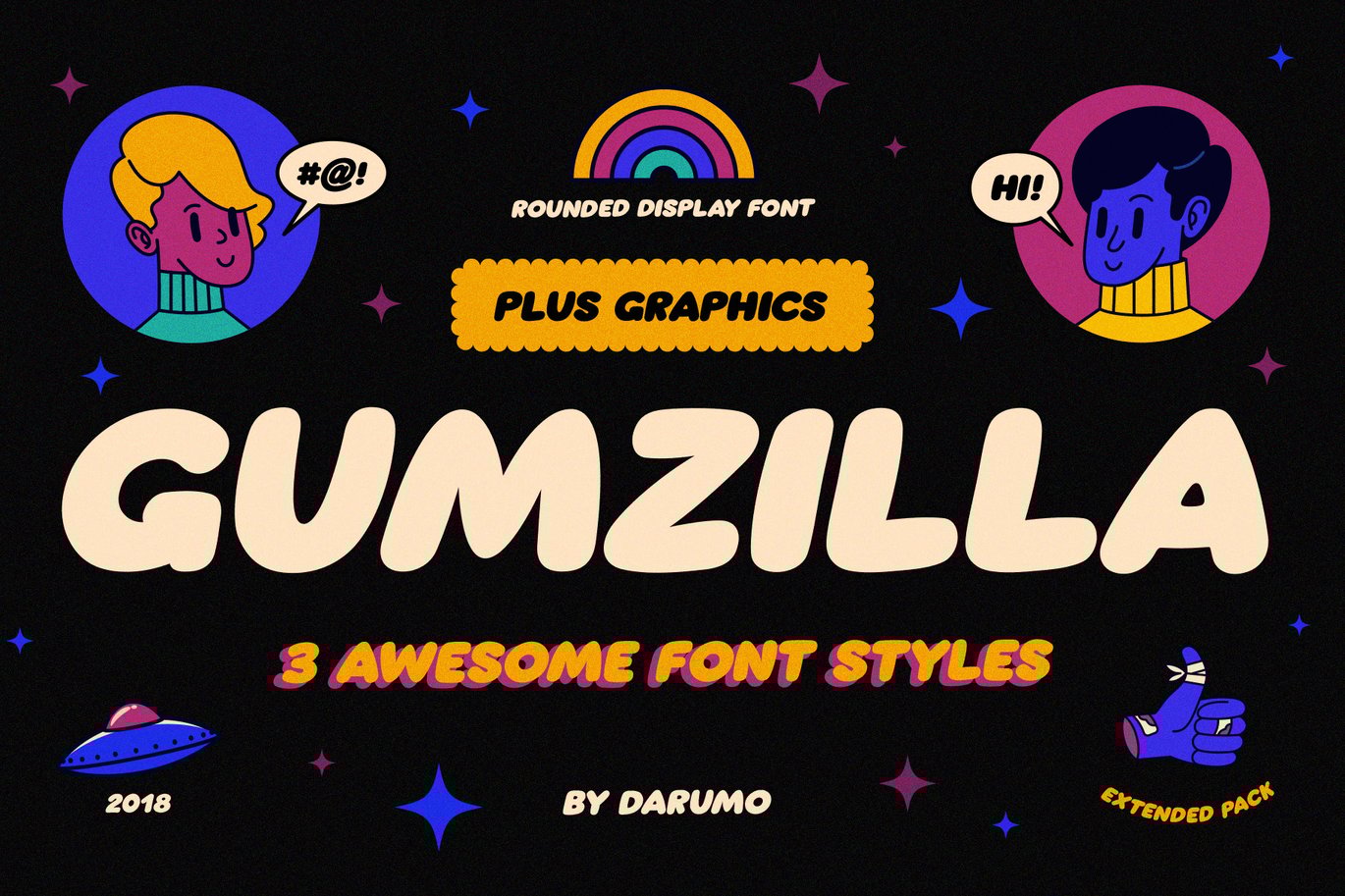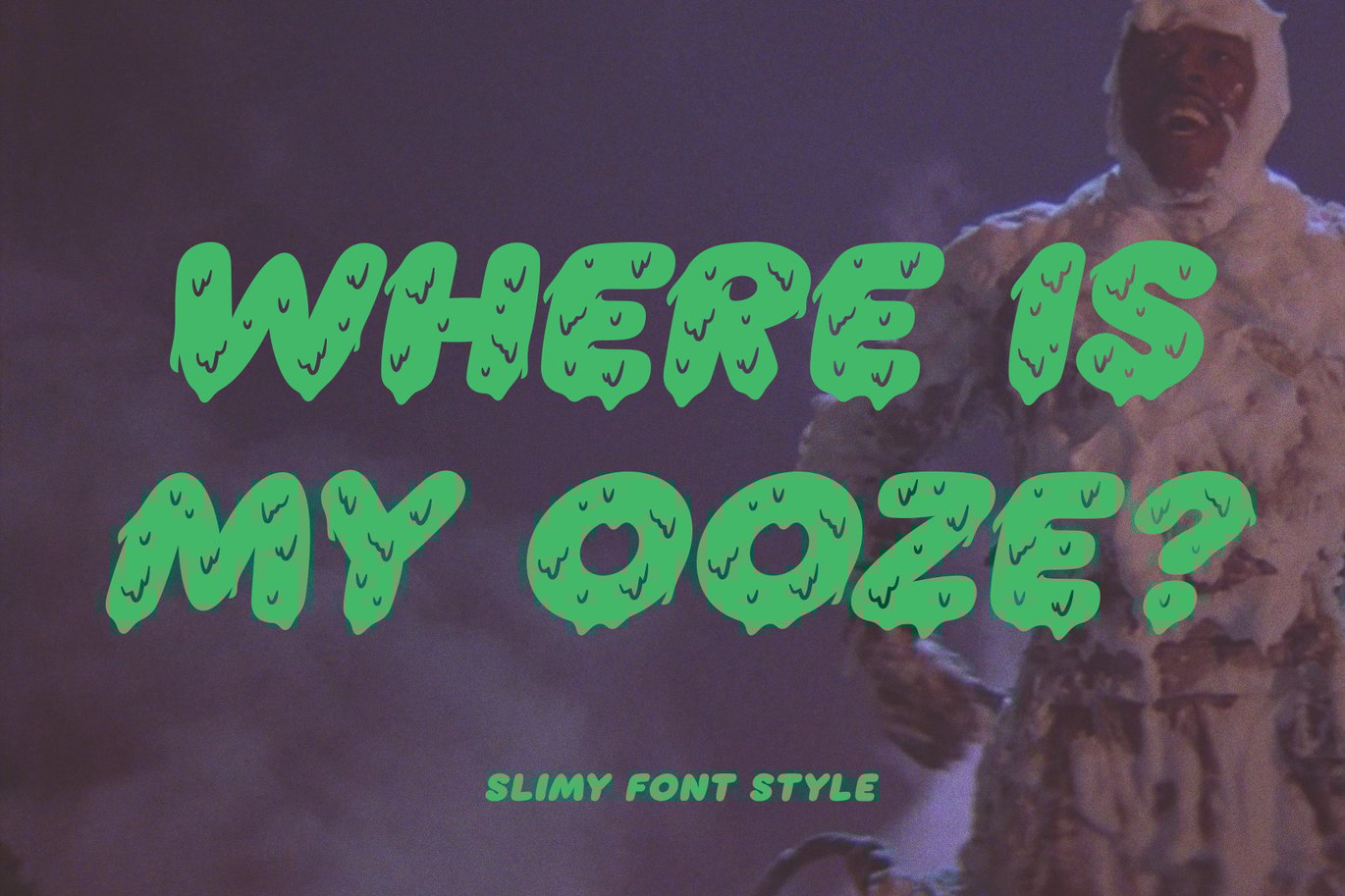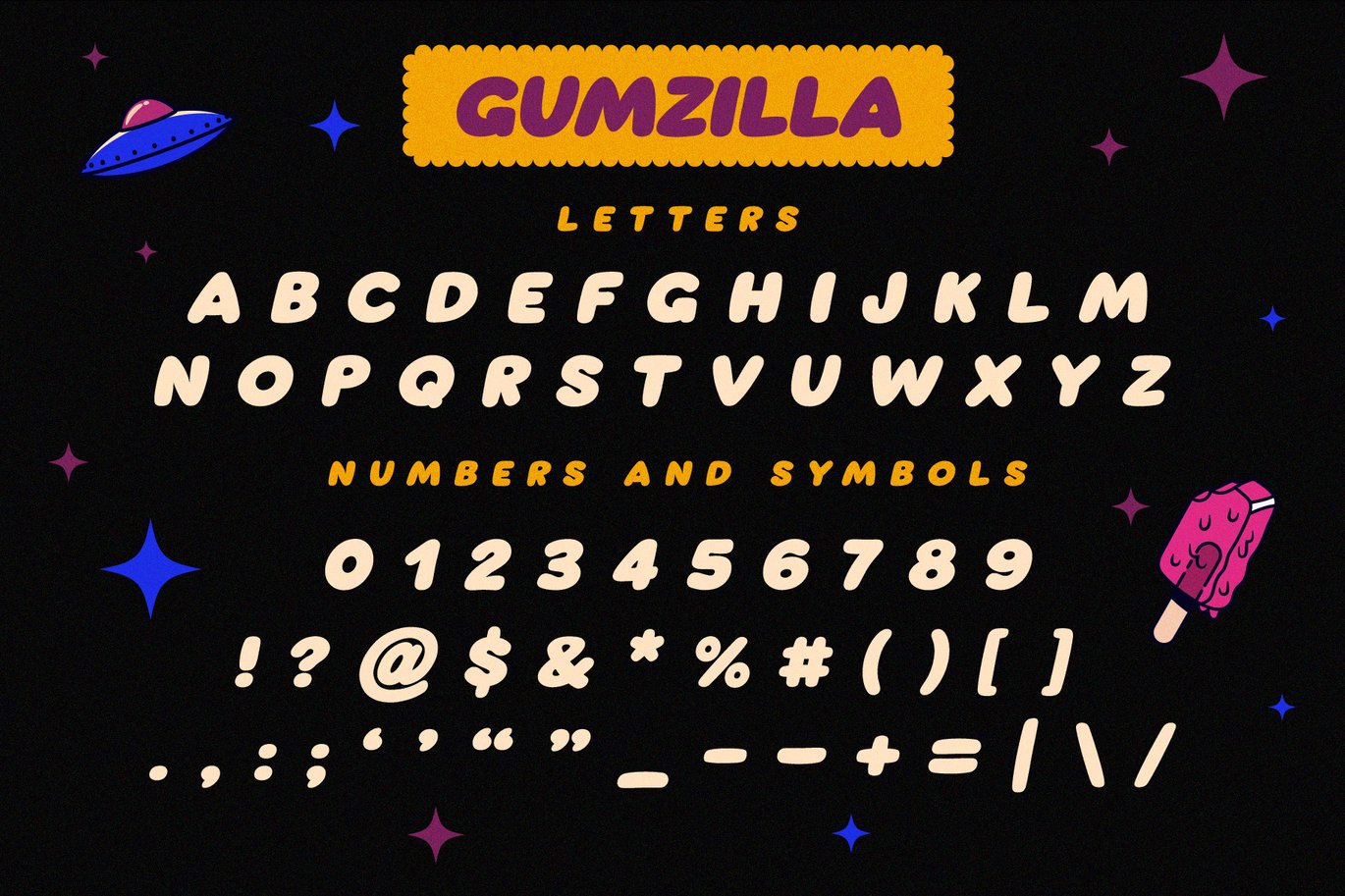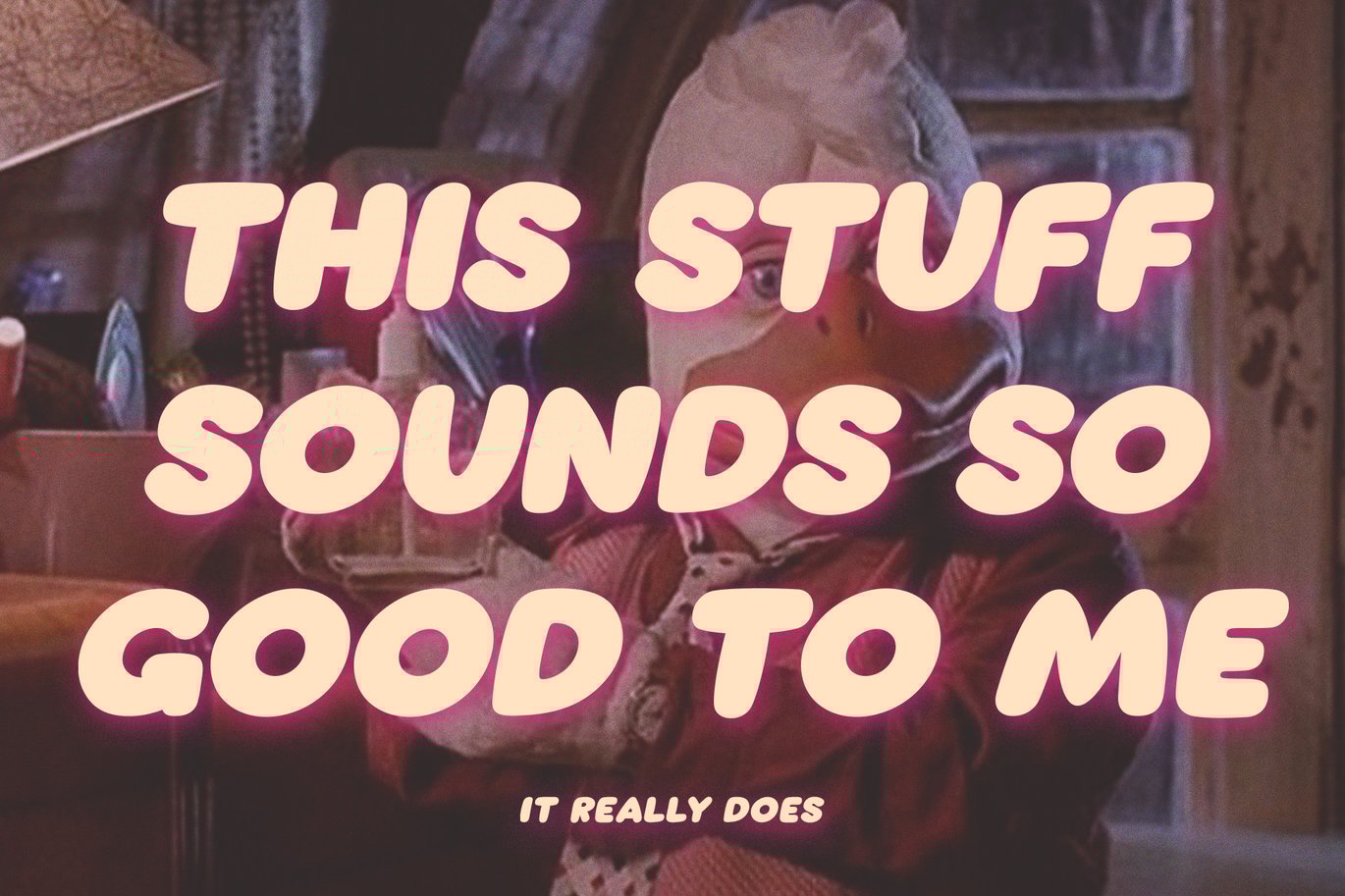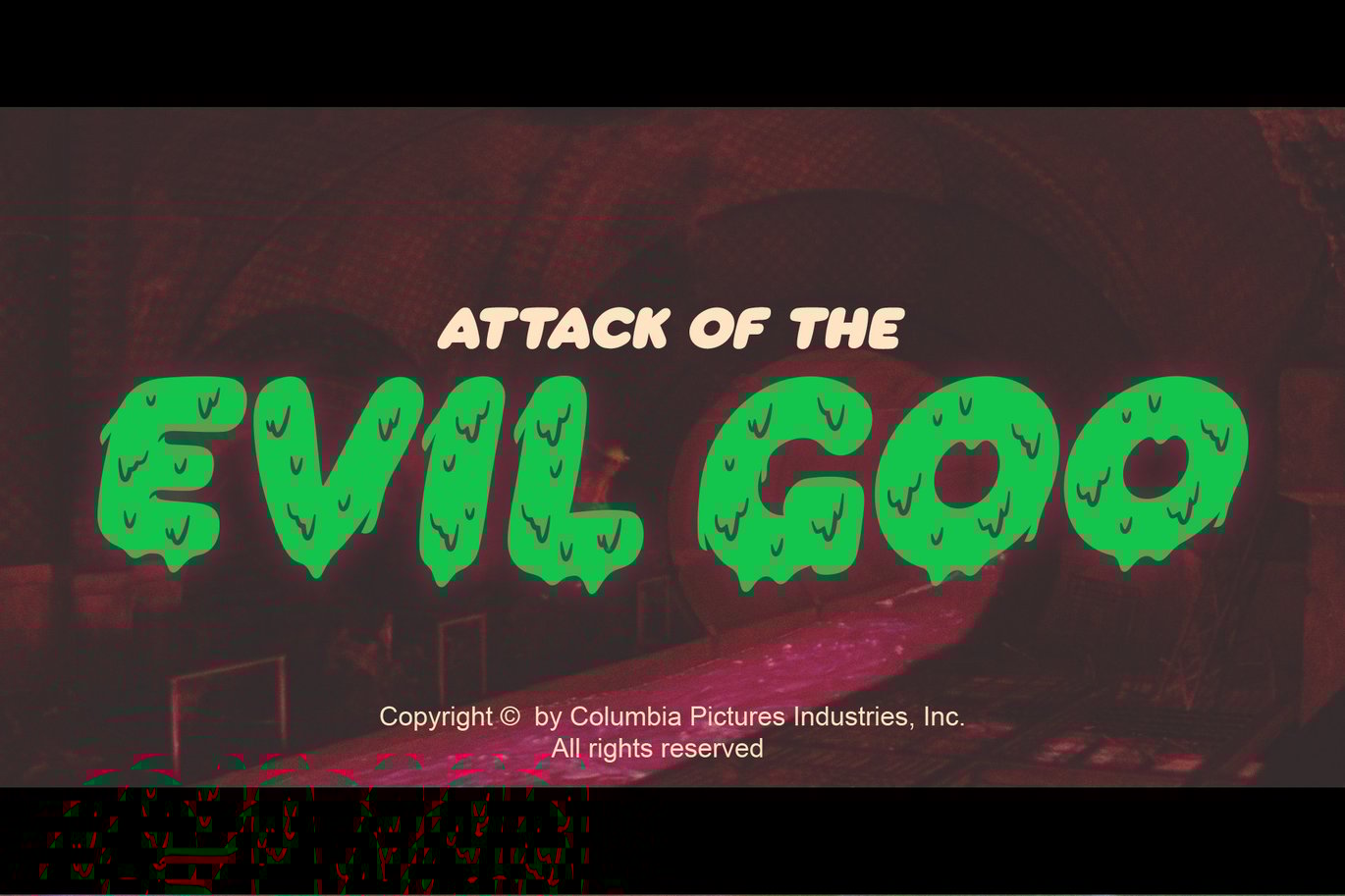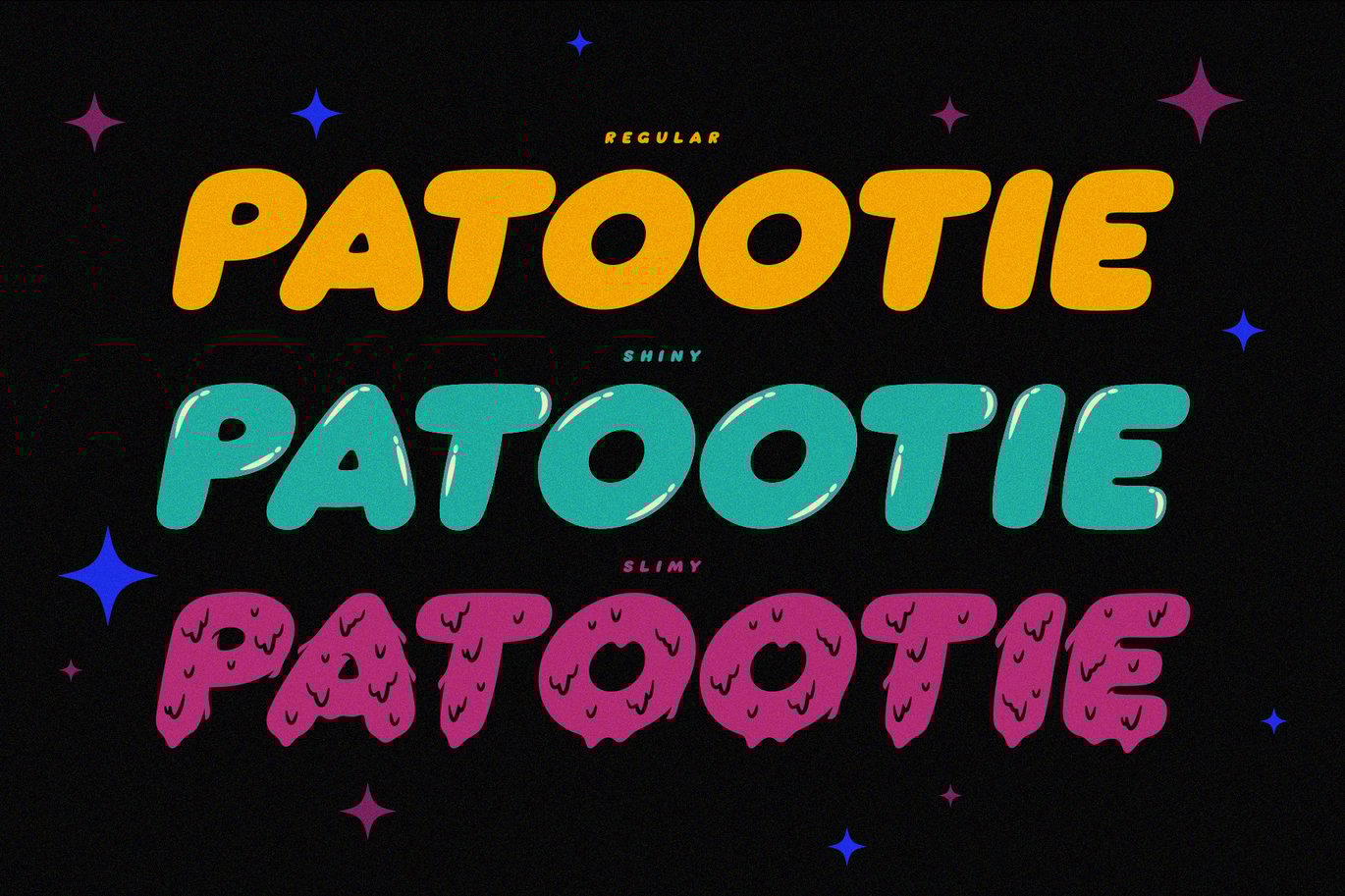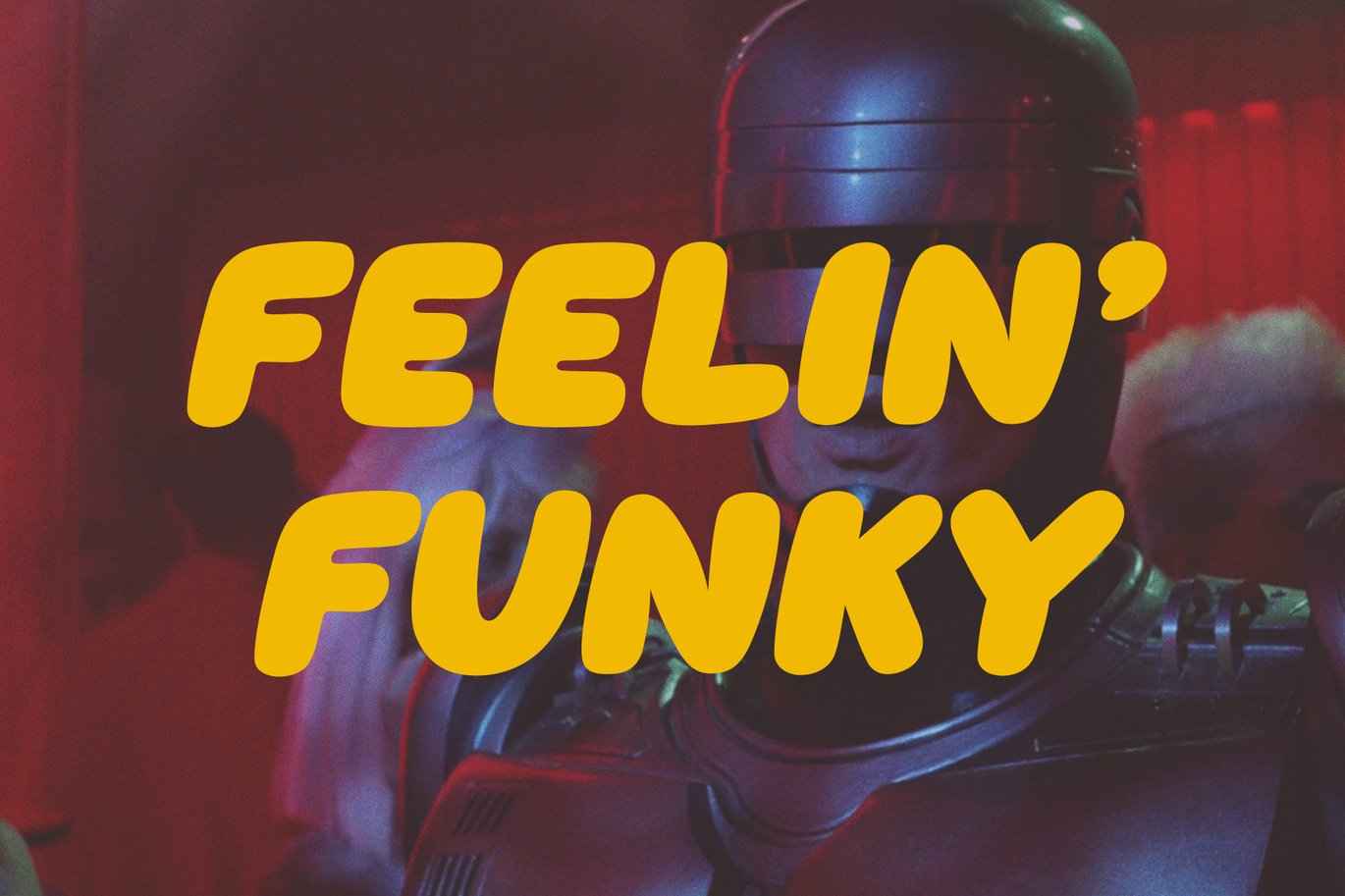
Gumzilla Font Plus Graphic Pack
Introducing GUMZILLA, a rounded font with 3 styles (regular, shiny, and slimy). It is inspired by the 80s and 90s package design aesthetic, but it looks fresh and playful. Could be used in many different ways. Perfect for big headers, but if necessary it could be used for text blocks also.